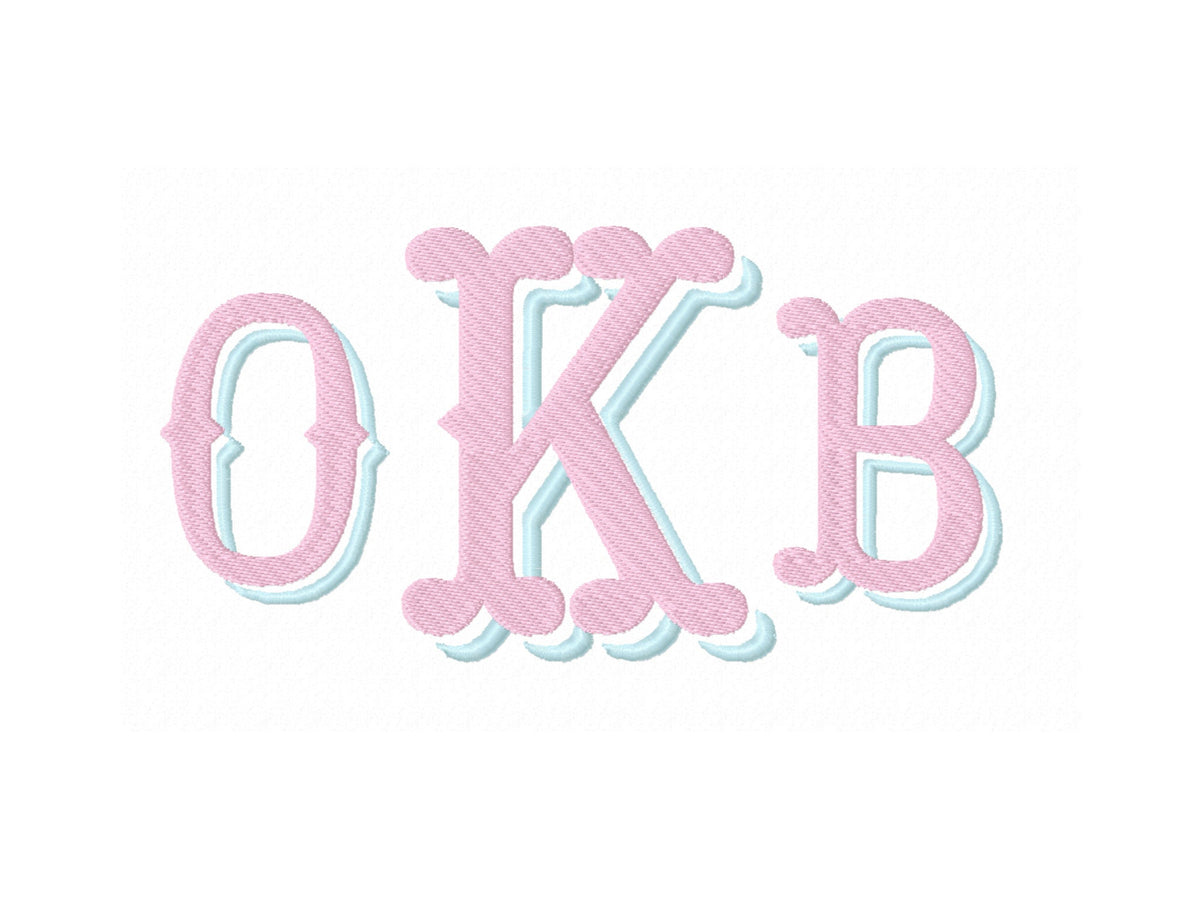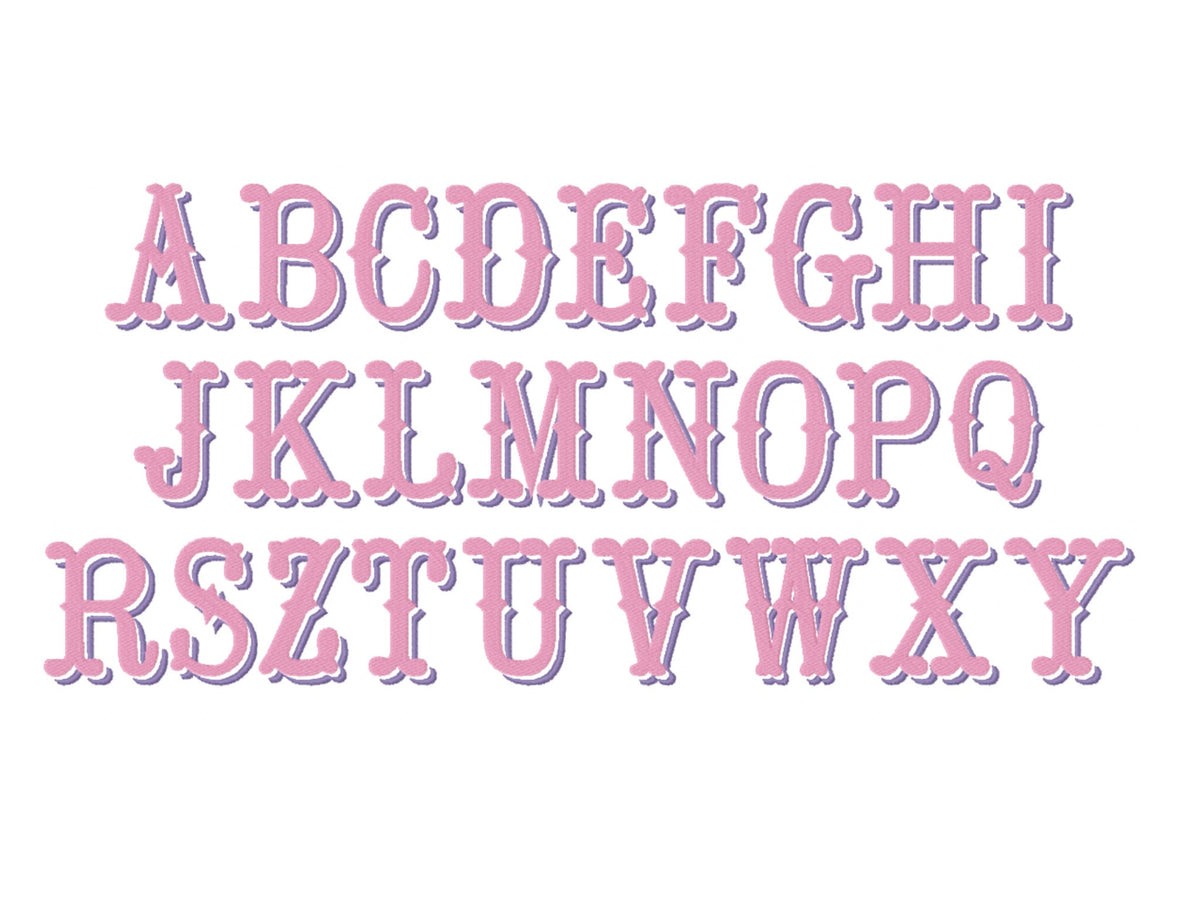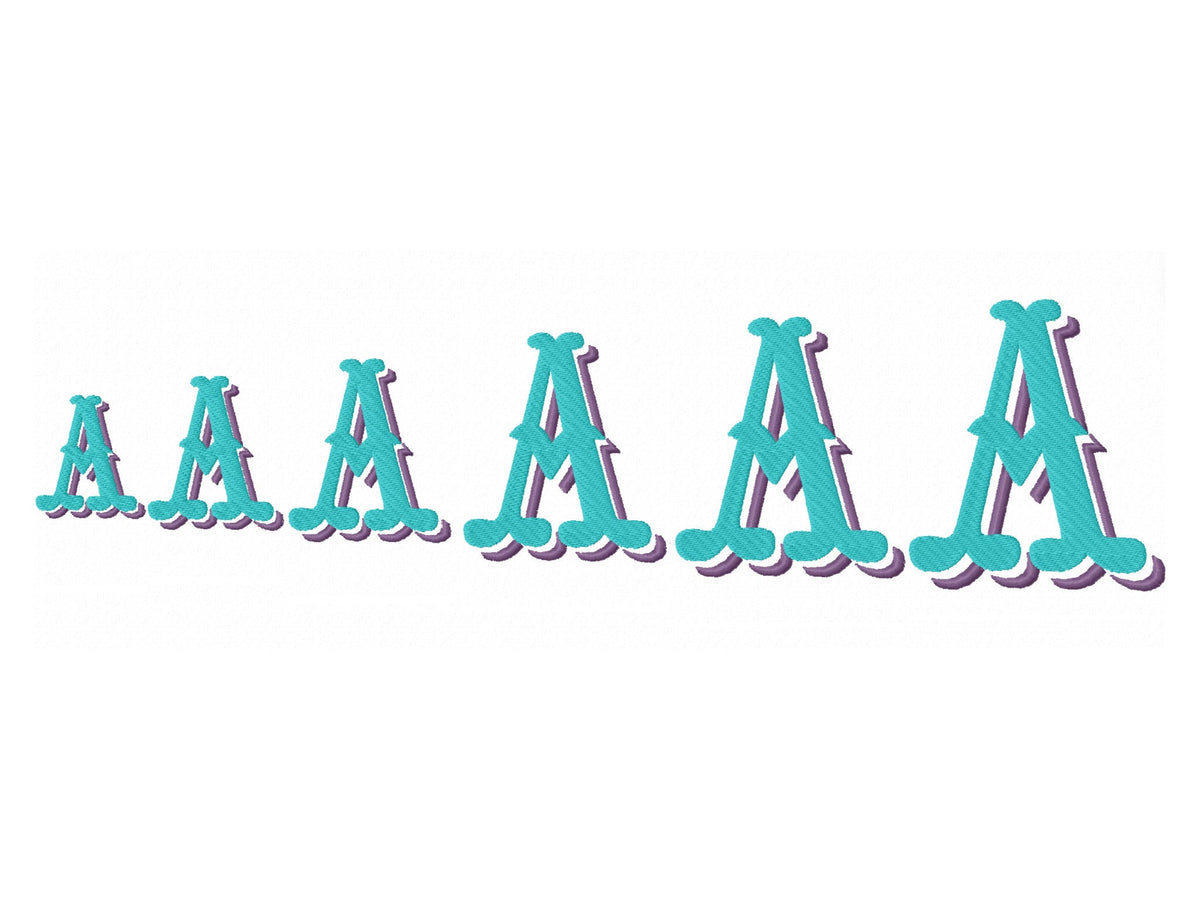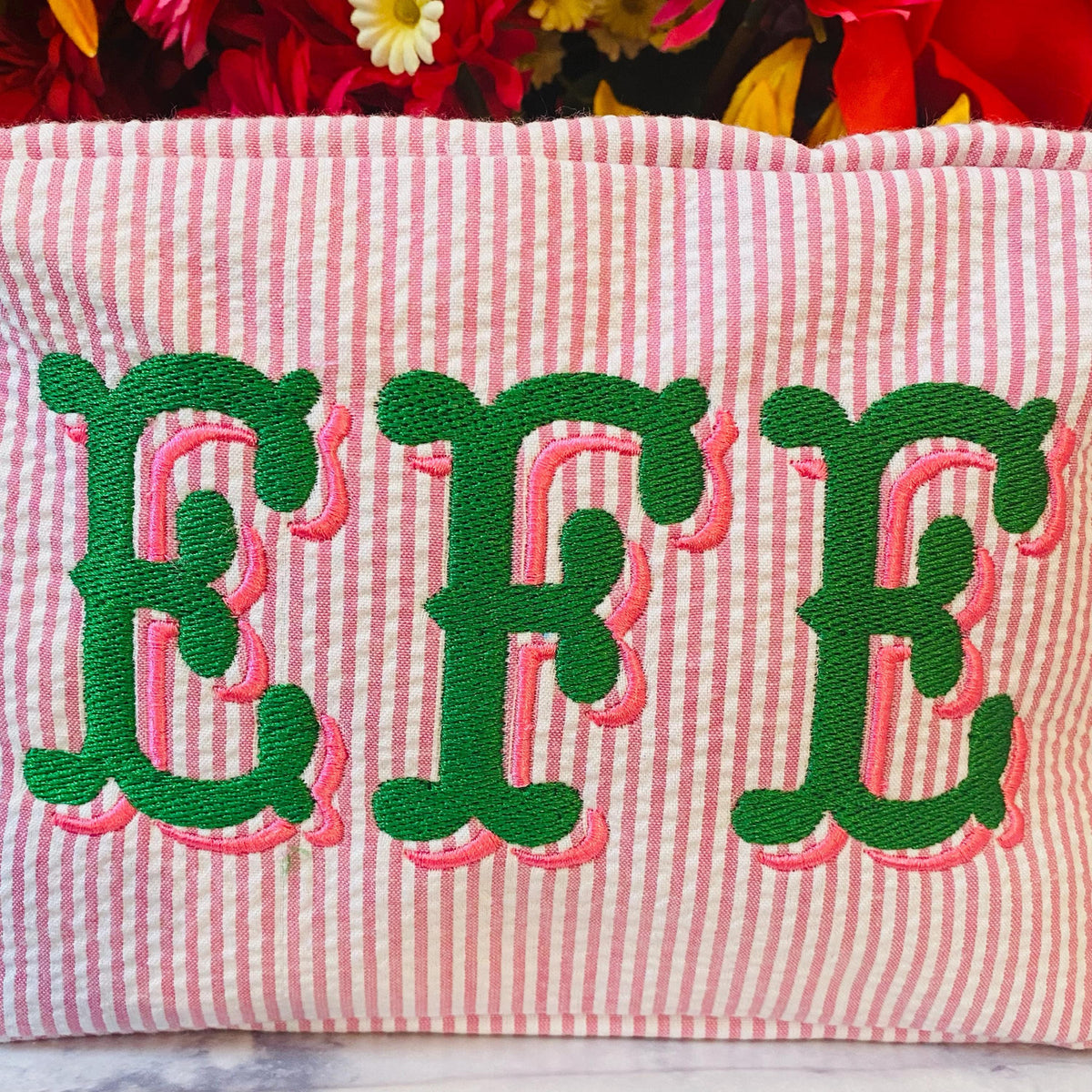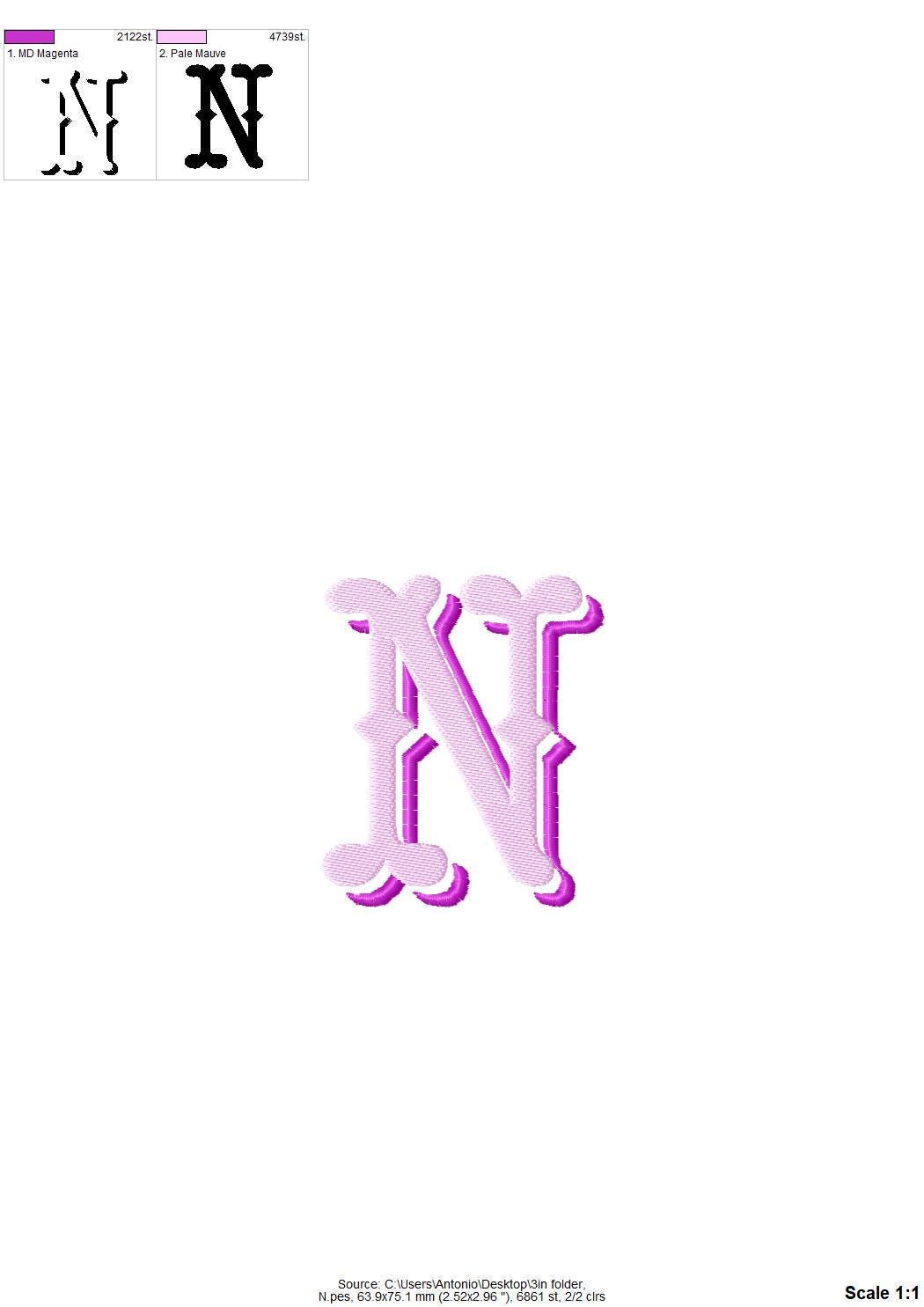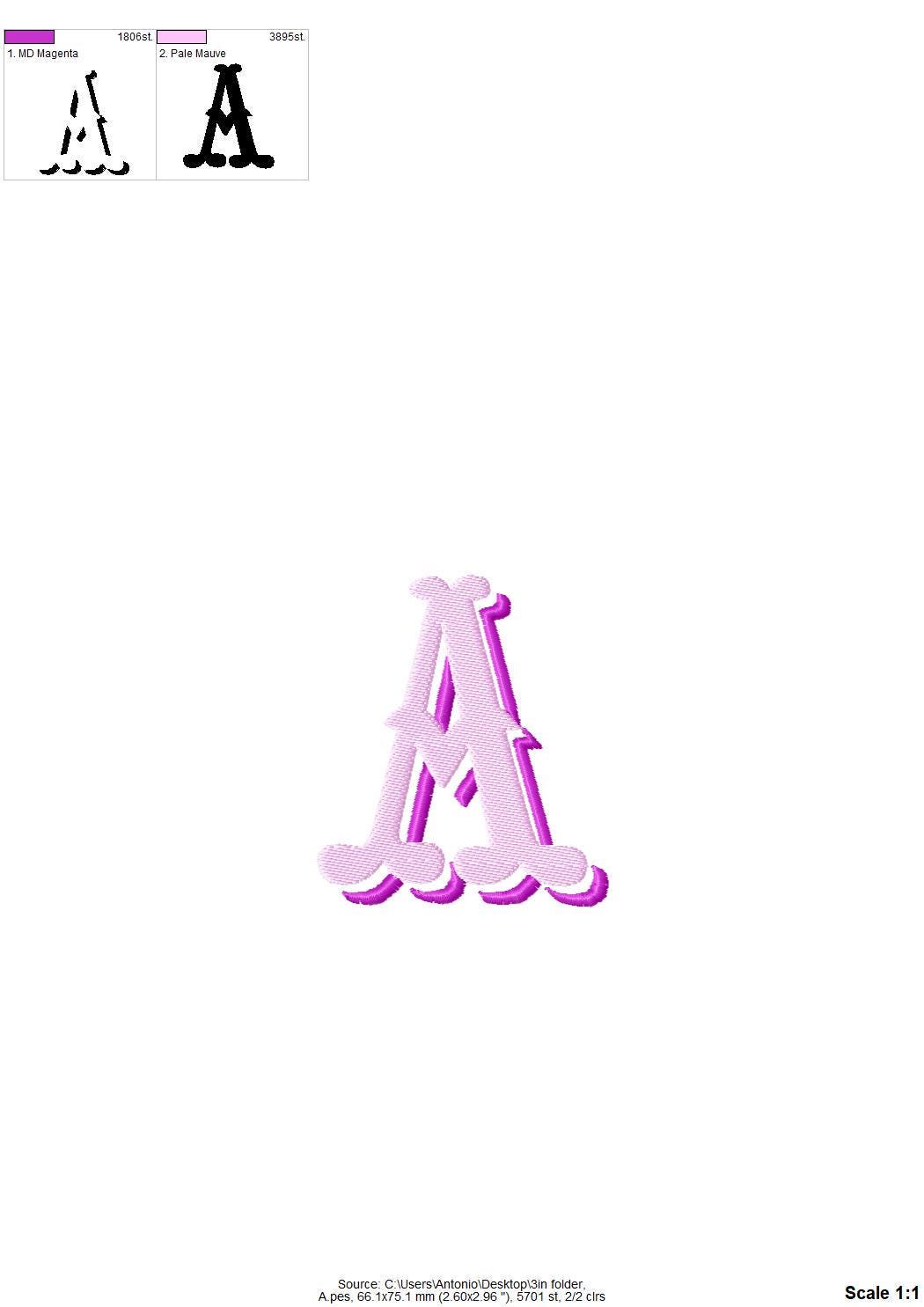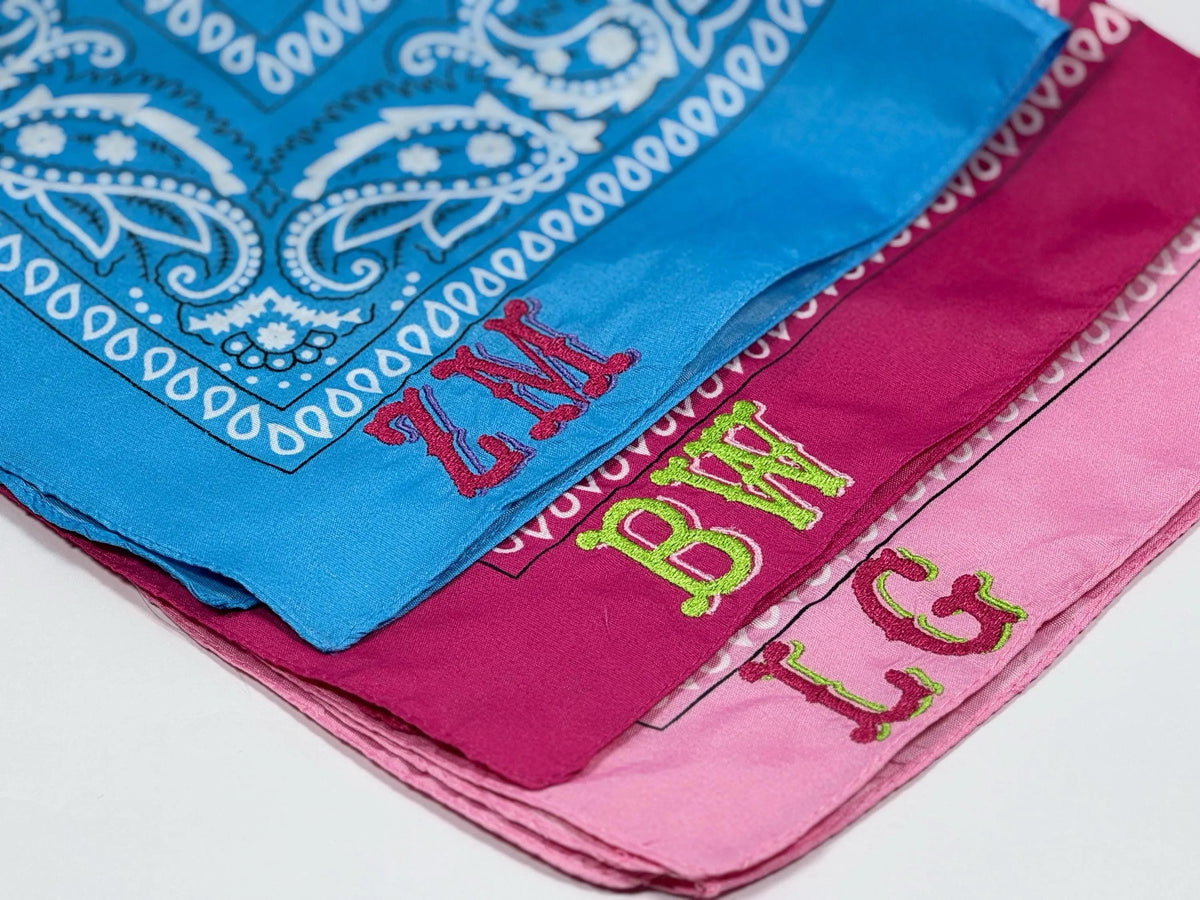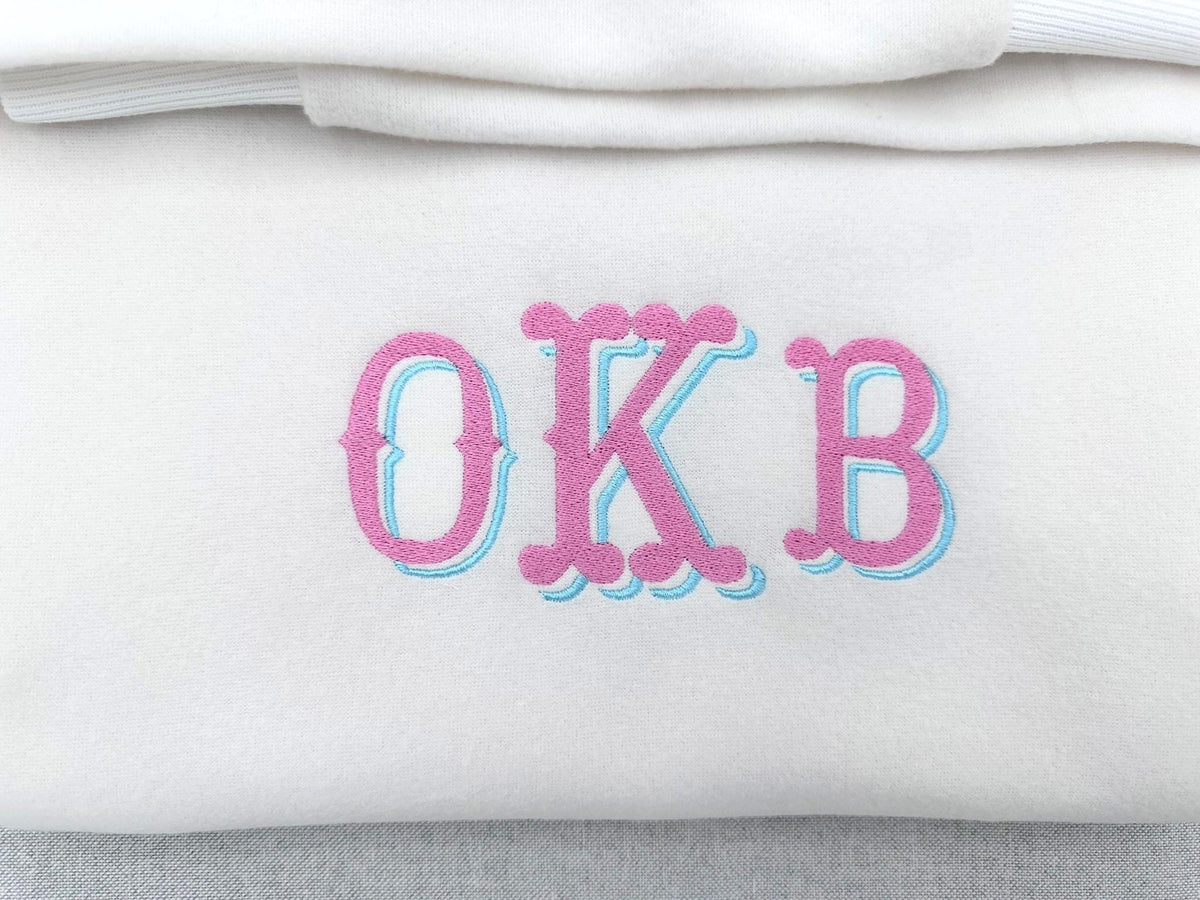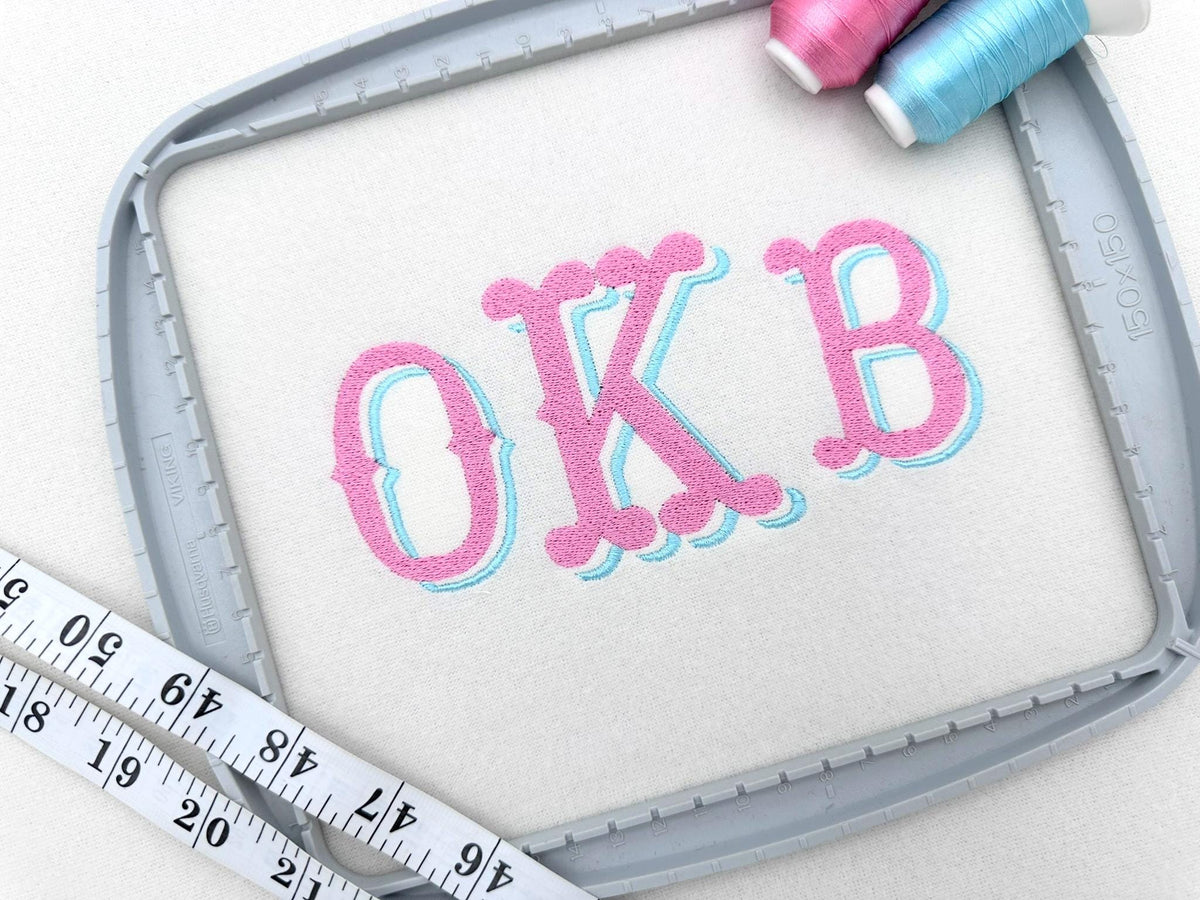
Western Fishtail Shadow Font
The letters come in six sizes: 1.5, 2, 2.4, 3, 3.5 and 3.7 inches. Fill stitch western letters with a drop shadow in a second color. Includes uppercase letters A to Z.
- Western fishtail drop shadow font
- Uppercase A to Z
- 6 sizes, 1.5 to 3.7 in